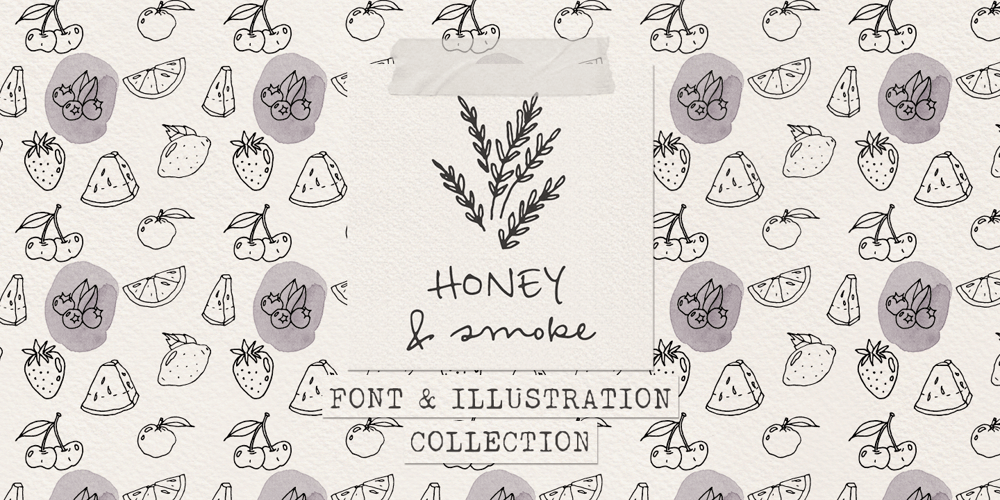
Honey and Smoke Font Family was designed by Ana Parracho and published by Ana’s Fonts. Honey and Smoke contains 4 styles and family package options. Honey and Smoke is a handwritten script font and illustration collection, perfect to create cute handmade designs, such as logos, packaging, prints and postcards, patterns, and social media posts.Honey and Smoke includes: A handwritten script font with tons of ligatures and a bonus slant version A dingbat font with 62 handmade line drawings, including fruits, vegetables and plants, with a bonus blackout version.